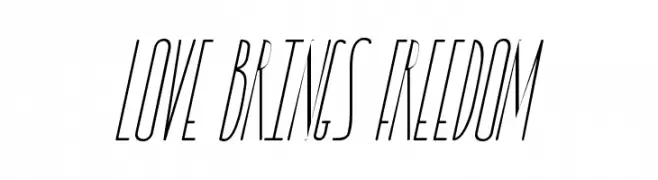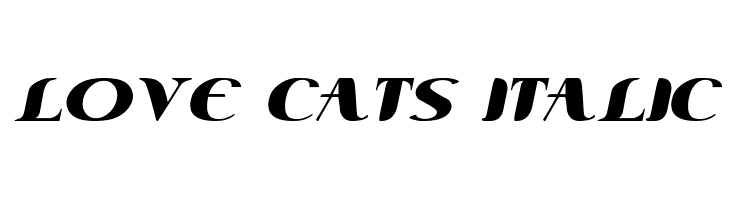
An ornate, decorative font with diamond-framed letters, ideal for monograms.
A sleek, elongated font with a modern slant and consistent stroke width.
A playful and elegant script font with flowing, connected letterforms.
A bold, high-contrast font with angular serifs and a modern, decorative style.
A bold, italic font with sweeping curves and a modern calligraphic style.
A decorative font with characters enclosed in heart shapes, ideal for romantic themes.
A playful, handwritten font with tall, narrow letters and a casual style.
A playful, hand-drawn style font with tall, narrow letters.
A bold, playful font with coffee-themed elements, perfect for eye-catching designs.